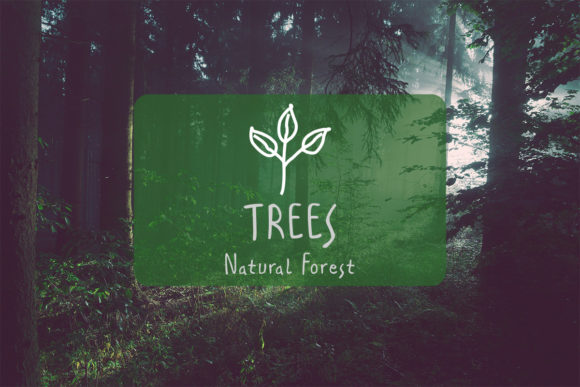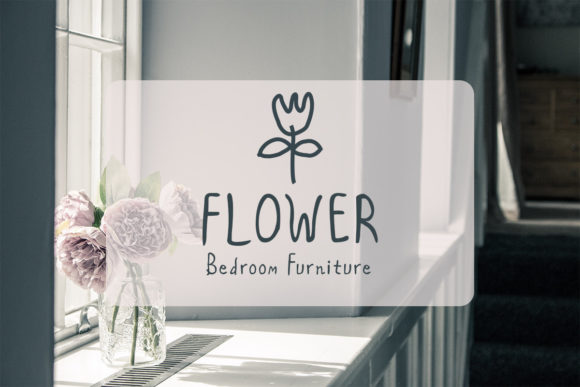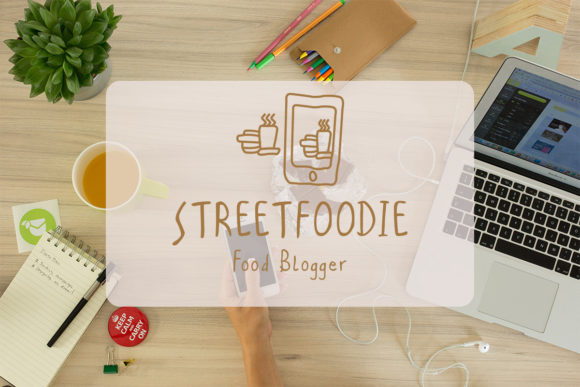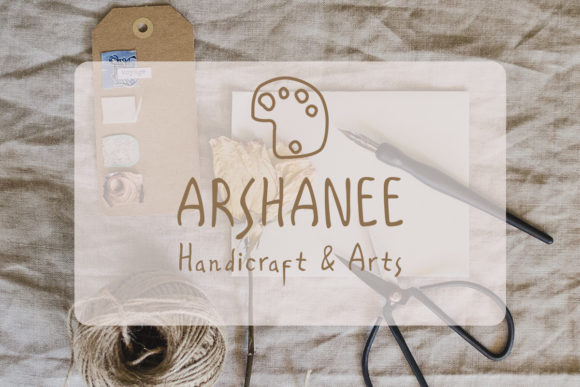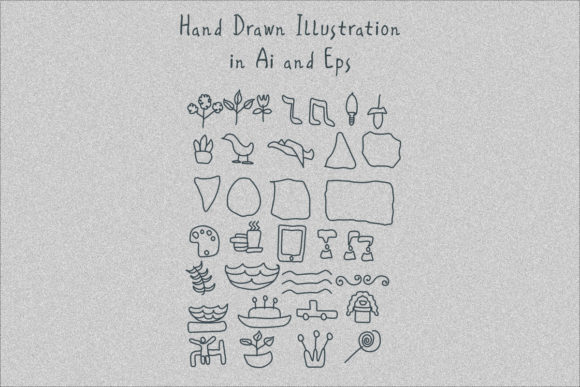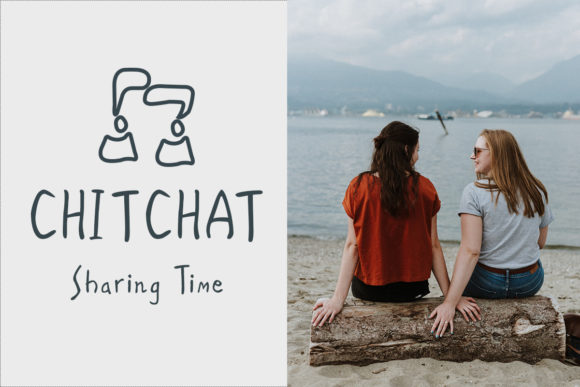
Discover the Earthy Charm of Arshavina Font
Are you tired of using the same old fonts in your designs? Look no further than Arshavina, a unique display font that’s sure to add a touch of natural charm to your projects. Arshavina feels incredibly natural and down-to-earth, making it the perfect choice for designers and crafters looking to add some personality to their work.
What is Arshavina Font?
Arshavina is a display font that’s designed to evoke a sense of earthiness and natural beauty. With its organic and flowing lines, this font is perfect for adding a touch of whimsy and charm to your designs. Whether you’re working on a logo, a poster, or a social media graphic, Arshavina is sure to make your project stand out.
Characteristics of Arshavina Font
So, what makes Arshavina so unique? Here are a few characteristics that set this font apart:
- Natural and earthy feel: Arshavina has a distinctly natural and down-to-earth feel that’s perfect for designers who want to add some organic charm to their work.
- Organic lines: The lines in Arshavina are smooth and flowing, giving the font a sense of movement and energy.
- Unique letterforms: Each letter in Arshavina has its own unique character, making the font perfect for adding a touch of personality to your designs.
- Highly legible: Despite its unique character, Arshavina is still highly legible, making it perfect for use in a variety of design applications.
Uses for Arshavina Font
So, what can you use Arshavina for? The possibilities are endless! Here are a few ideas to get you started:
- Logos and branding: Arshavina is perfect for creating unique and memorable logos that will help your brand stand out.
- Posters and flyers: Add a touch of natural charm to your posters and flyers with Arshavina.
- Social media graphics: Use Arshavina to add some personality to your social media graphics and make them stand out in a crowded feed.
- Packaging design: Arshavina is perfect for adding a touch of natural charm to your packaging design.
Tips for Using Arshavina Font
Here are a few tips for getting the most out of Arshavina:
- Experiment with different sizes: Arshavina looks great in a variety of sizes, so don’t be afraid to experiment and find the size that works best for your design.
- Pair with other fonts: Arshavina pairs well with a variety of other fonts, so try pairing it with some of your favorite fonts to create a unique look.
- Use it sparingly: Because Arshavina is such a unique font, it’s best to use it sparingly. Try using it as a headline font or to add emphasis to certain words or phrases.
Arshavina is a unique and versatile font that’s perfect for designers and crafters looking to add some natural charm to their work. With its organic lines, unique letterforms, and highly legible design, Arshavina is sure to make your projects stand out. So why not give it a try and see what you can create?
Get Inspired by Arshavina Font
Still not sure what to do with Arshavina? Here are a few ideas to get you started:
- Create a nature-inspired logo: Use Arshavina to create a logo that’s inspired by nature.
- Design a poster for an outdoor event: Arshavina is perfect for designing posters for outdoor events like music festivals or hiking events.
- Make a social media graphic for a sustainable brand: Use Arshavina to create a social media graphic that’s perfect for a sustainable brand.
Whatever you choose to create, Arshavina is sure to inspire you to think outside the box and try something new. So why not give it a try and see what you can create?